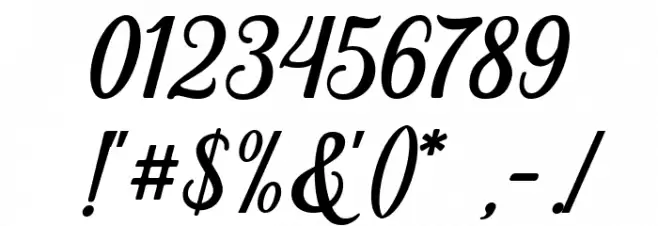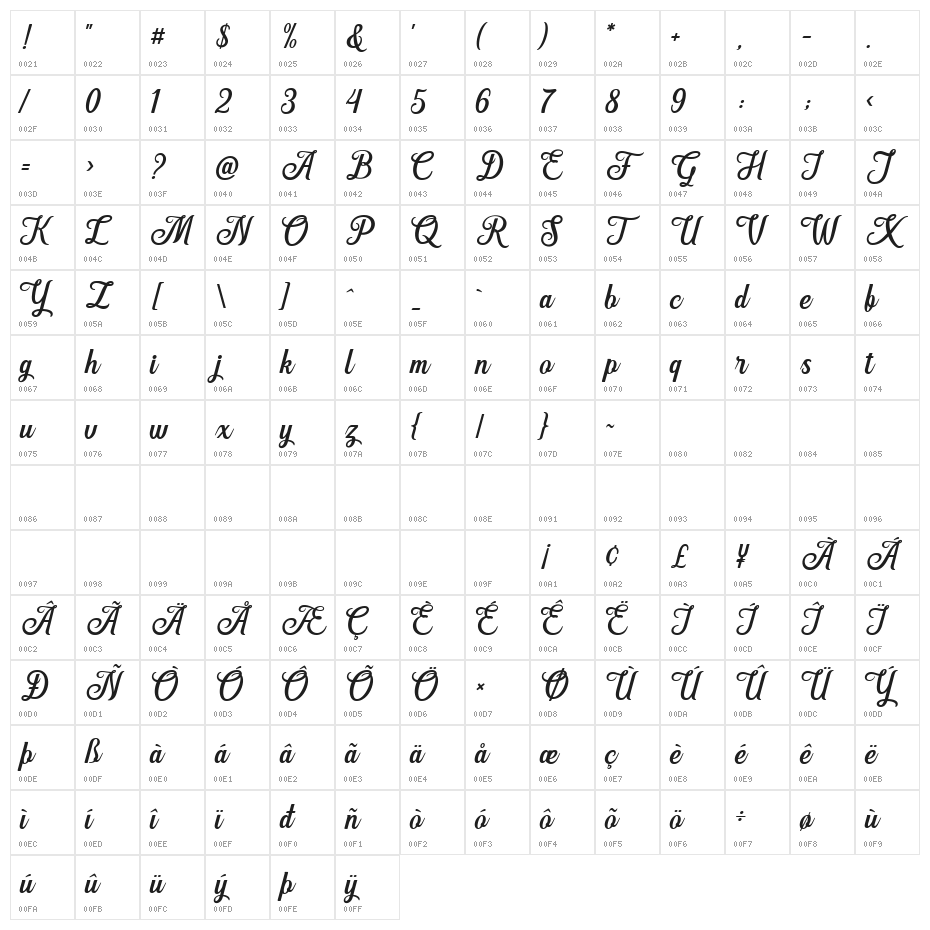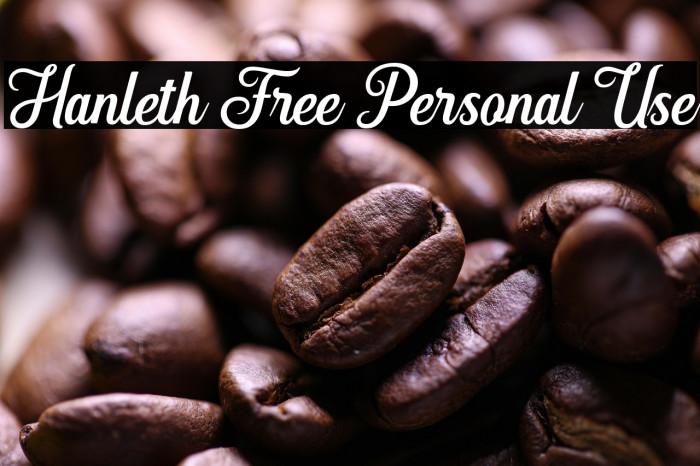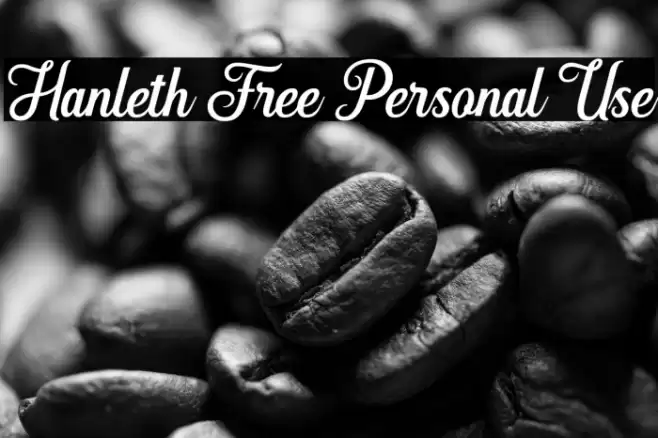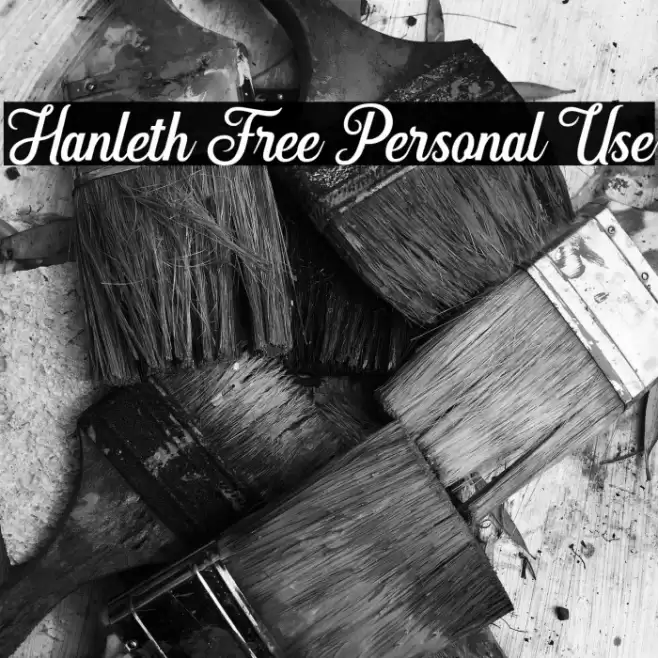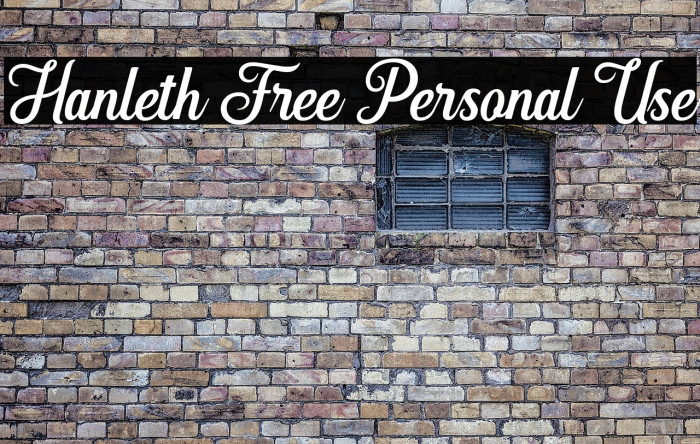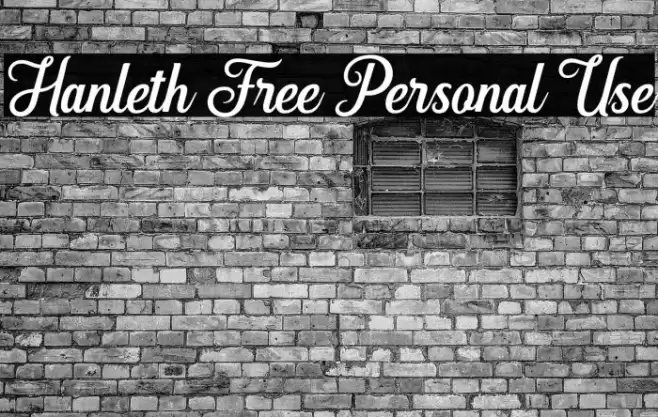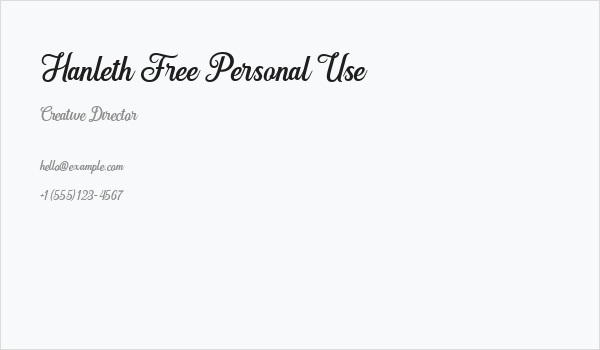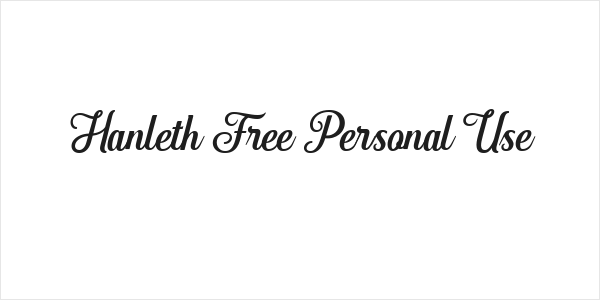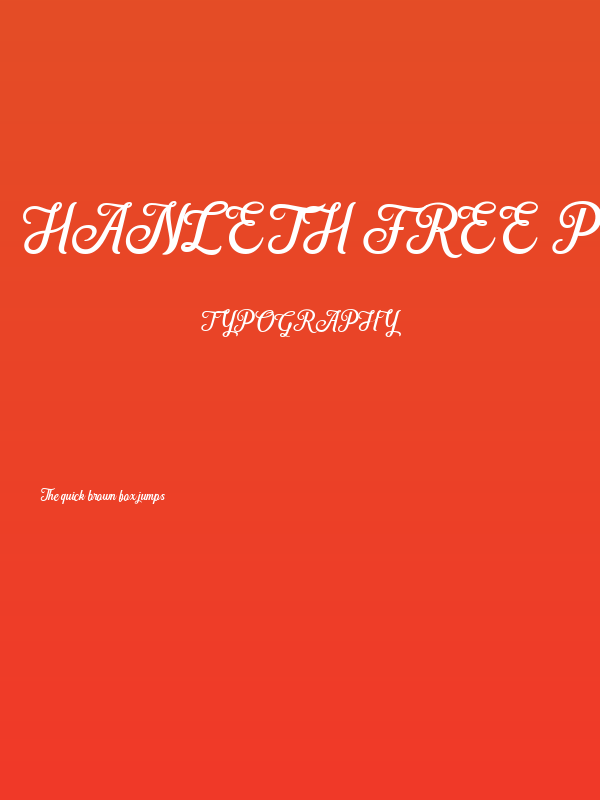
Hanleth Free Personal Use Font
Hanleth Free Personal Use Description
This font features a stylish and elegant script design, characterized by its flowing and connected letterforms. The uppercase letters exhibit a classic cursive style with intricate loops and swashes, giving it a sophisticated and decorative appearance. The lowercase letters maintain a similar cursive style but with a slightly more modern touch, offering a balance between traditional and contemporary aesthetics. The numerals are bold and clear, ensuring readability while maintaining the overall decorative theme. Special characters are designed to complement the script style, adding versatility to the font's use. This font is suitable for projects that require a touch of elegance and sophistication.
| Use Case | Logos, Invitations, Decorative Text |